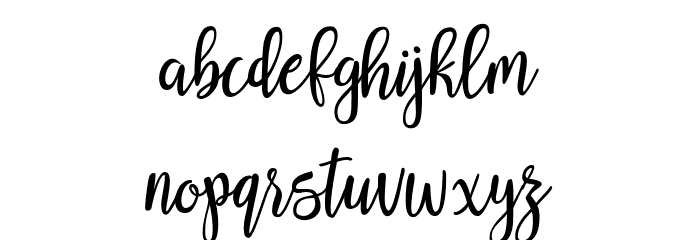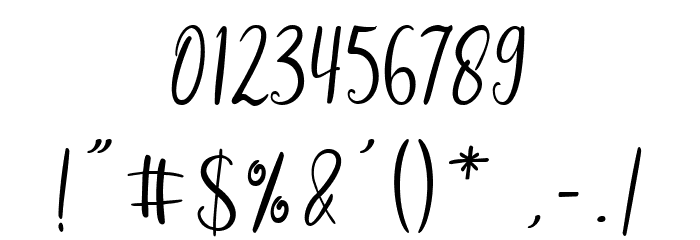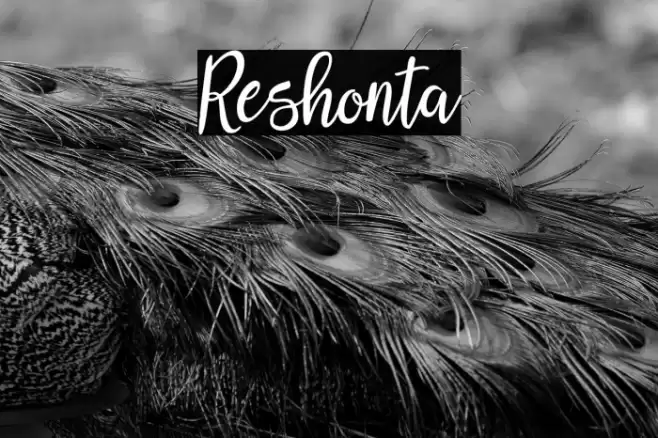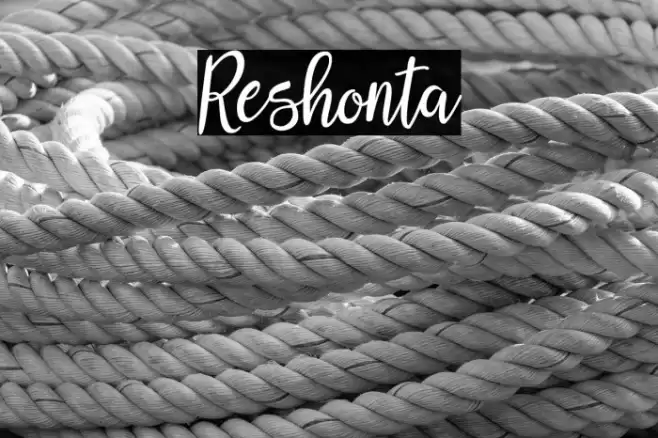
Reshonta Font
This font features a flowing, cursive style with elegant, sweeping strokes that convey a sense of sophistication and grace. The uppercase letters are bold and prominent, with a slight slant that adds to the dynamic feel of the text. The lowercase letters maintain a consistent style, with smooth curves and a playful yet refined appearance. Numbers and special characters are designed to match the overall aesthetic, ensuring a cohesive look across all text elements. This font is ideal for projects that require a touch of elegance and personality.
A cursive font with elegant, sweeping strokes and a sophisticated style.
- Font: Reshonta
- Proposed Projects: Wedding invitations, greeting cards, branding materials, and elegant packaging designs.
- Category: Script
- Overall Style: Elegant, Decorative
- Use Case: Logos, Invitations, Decorative text